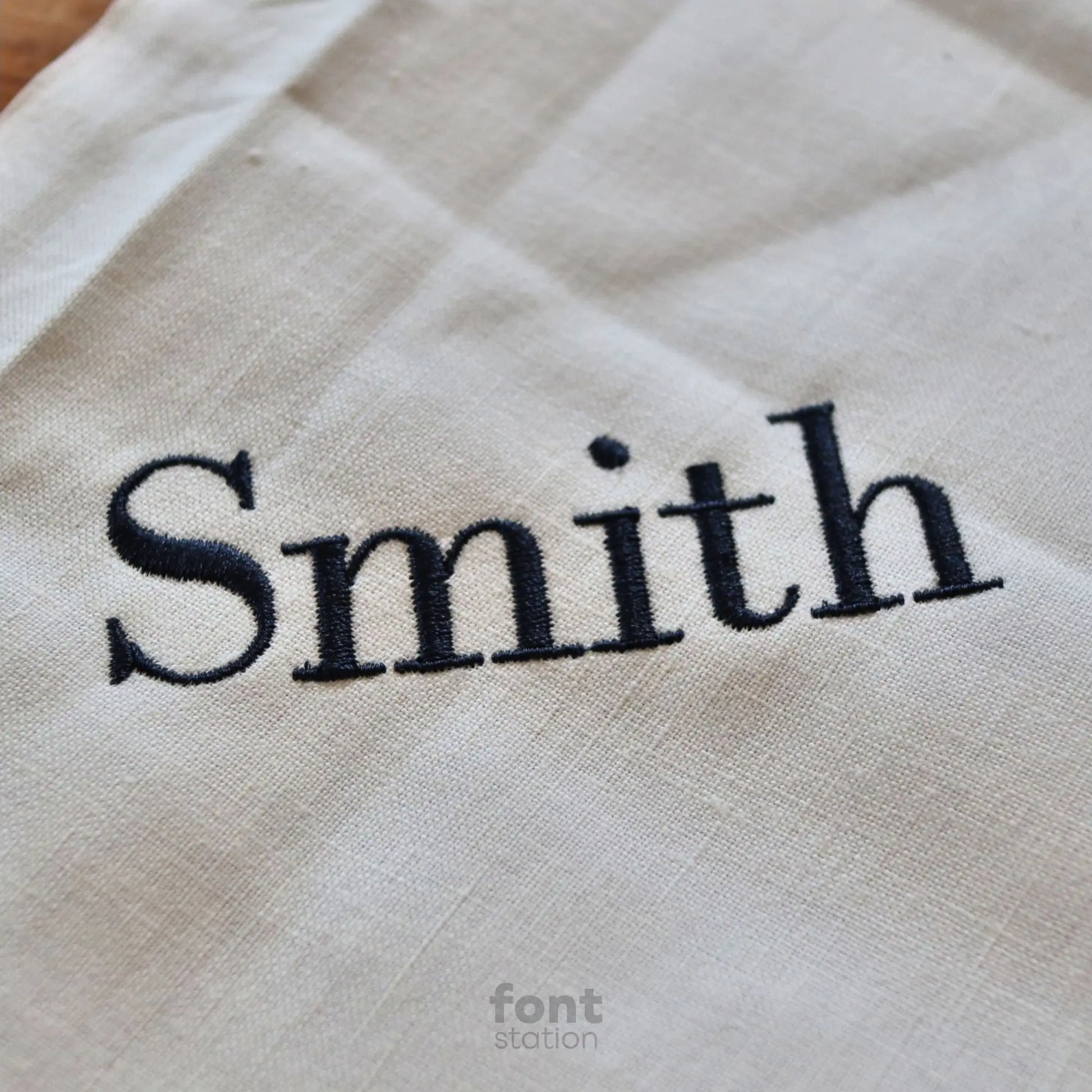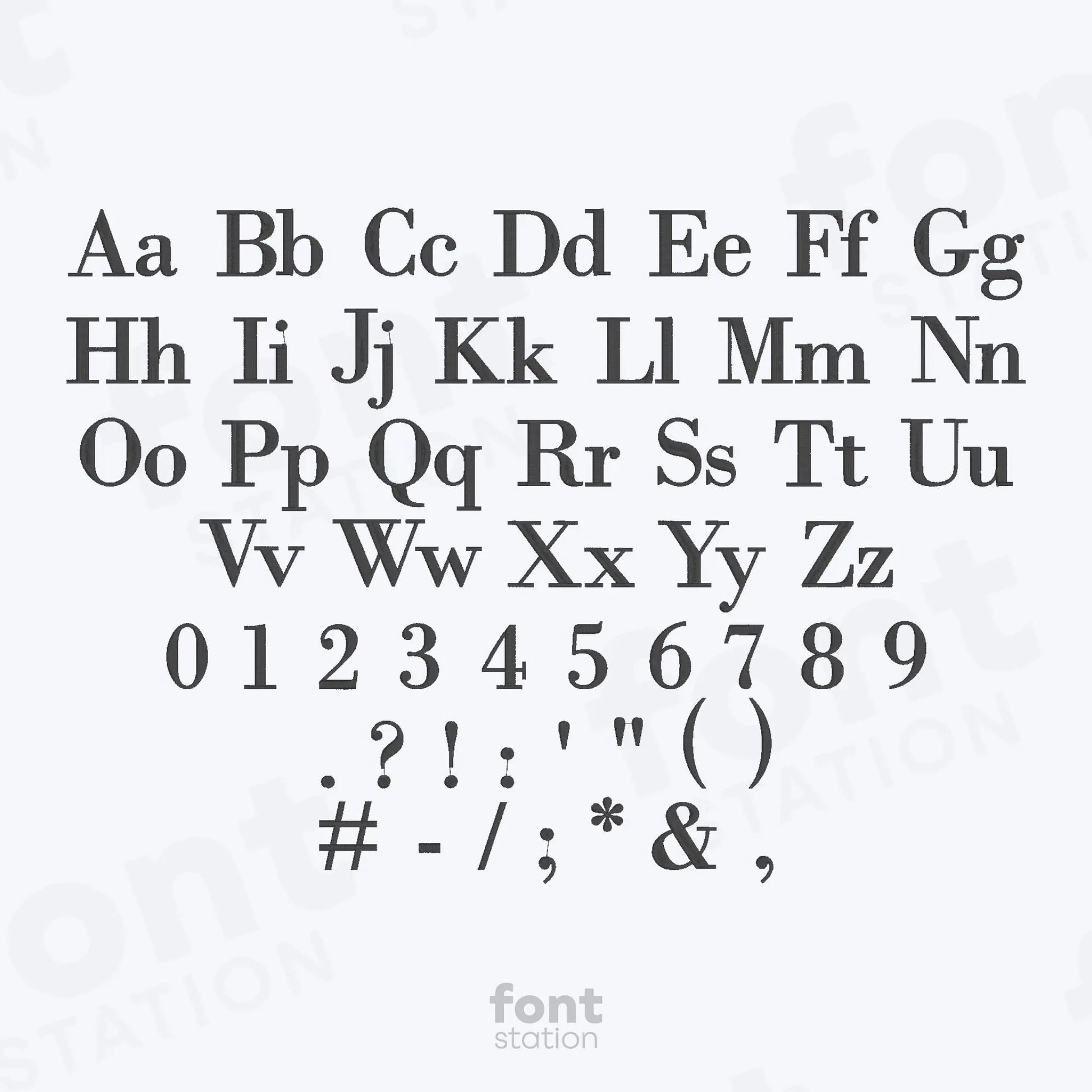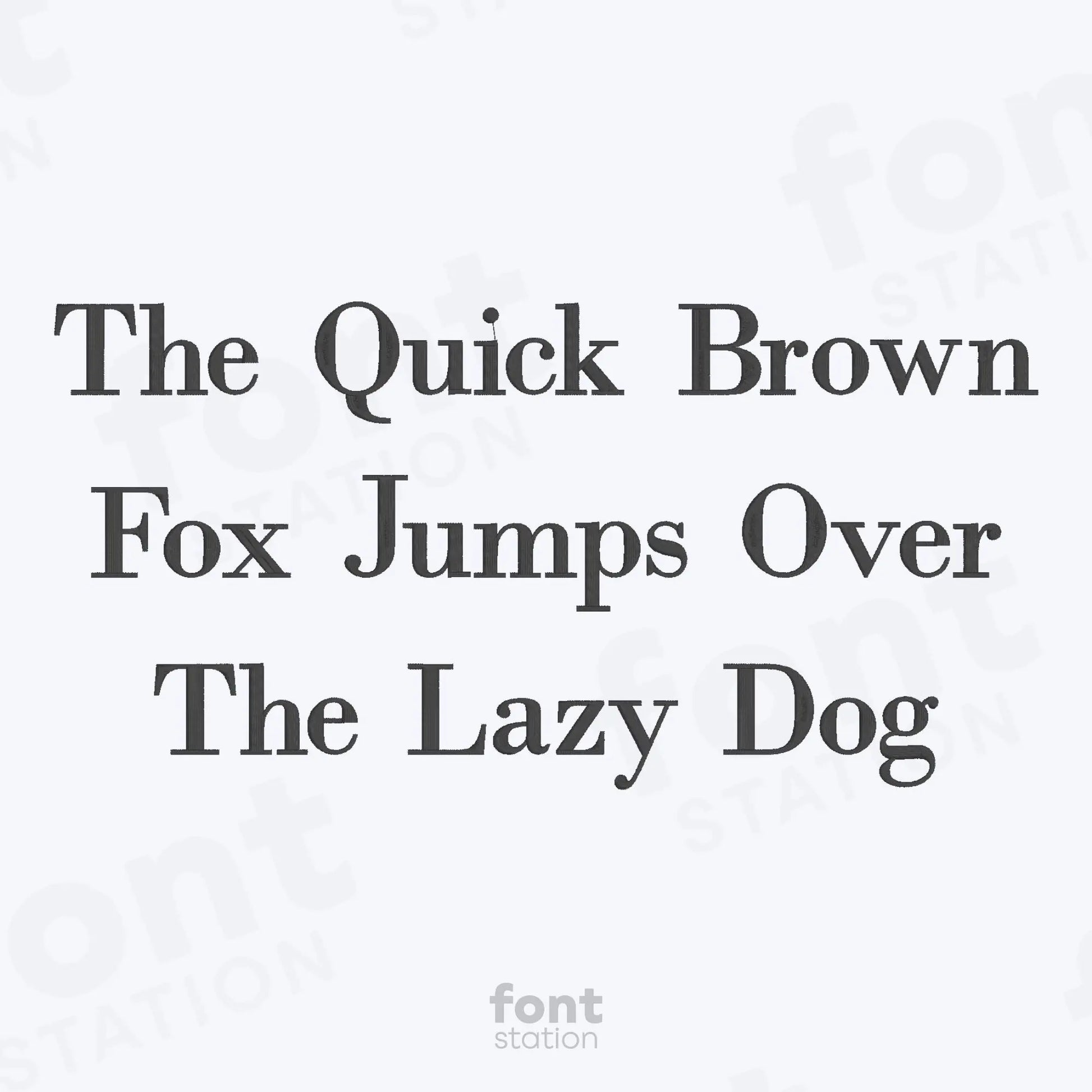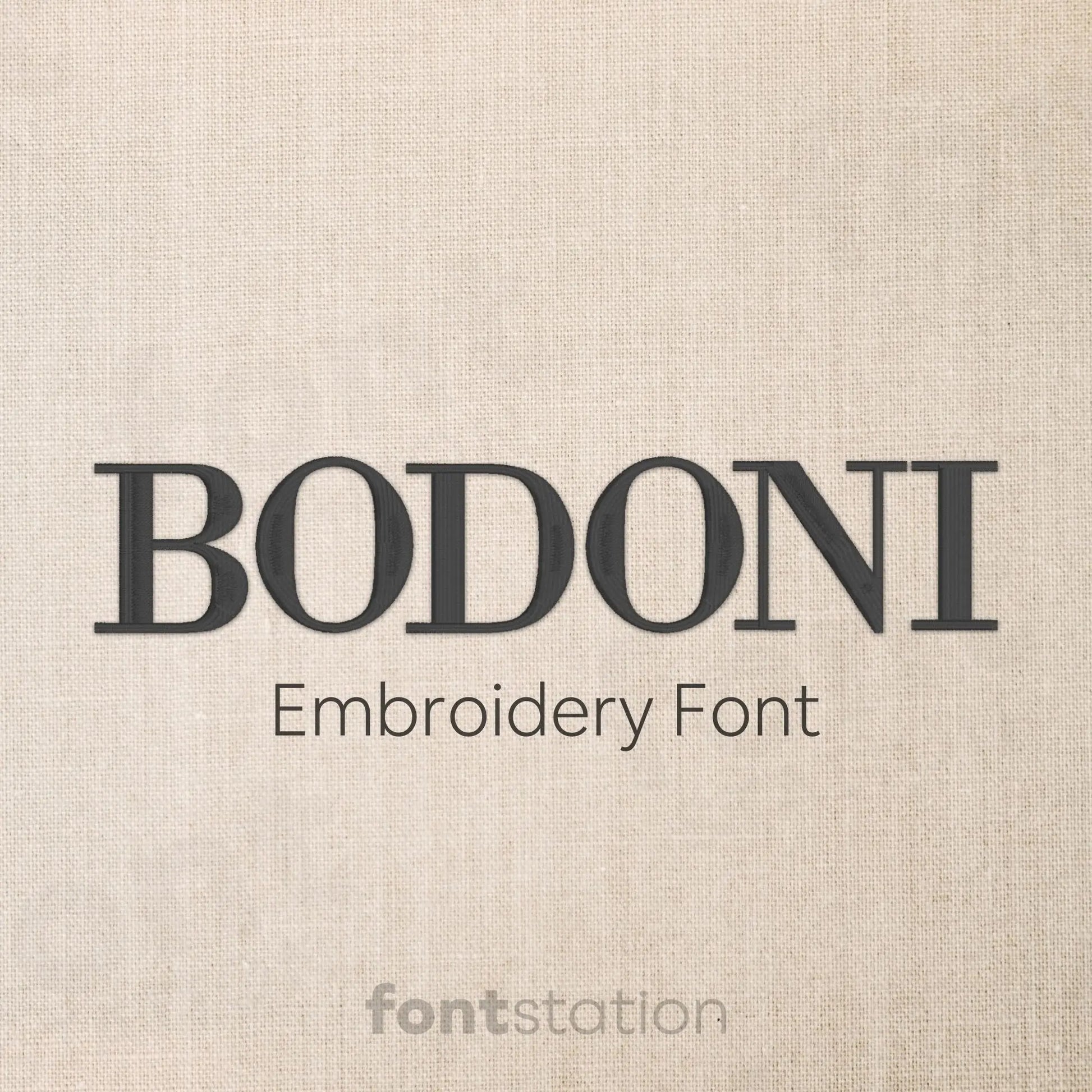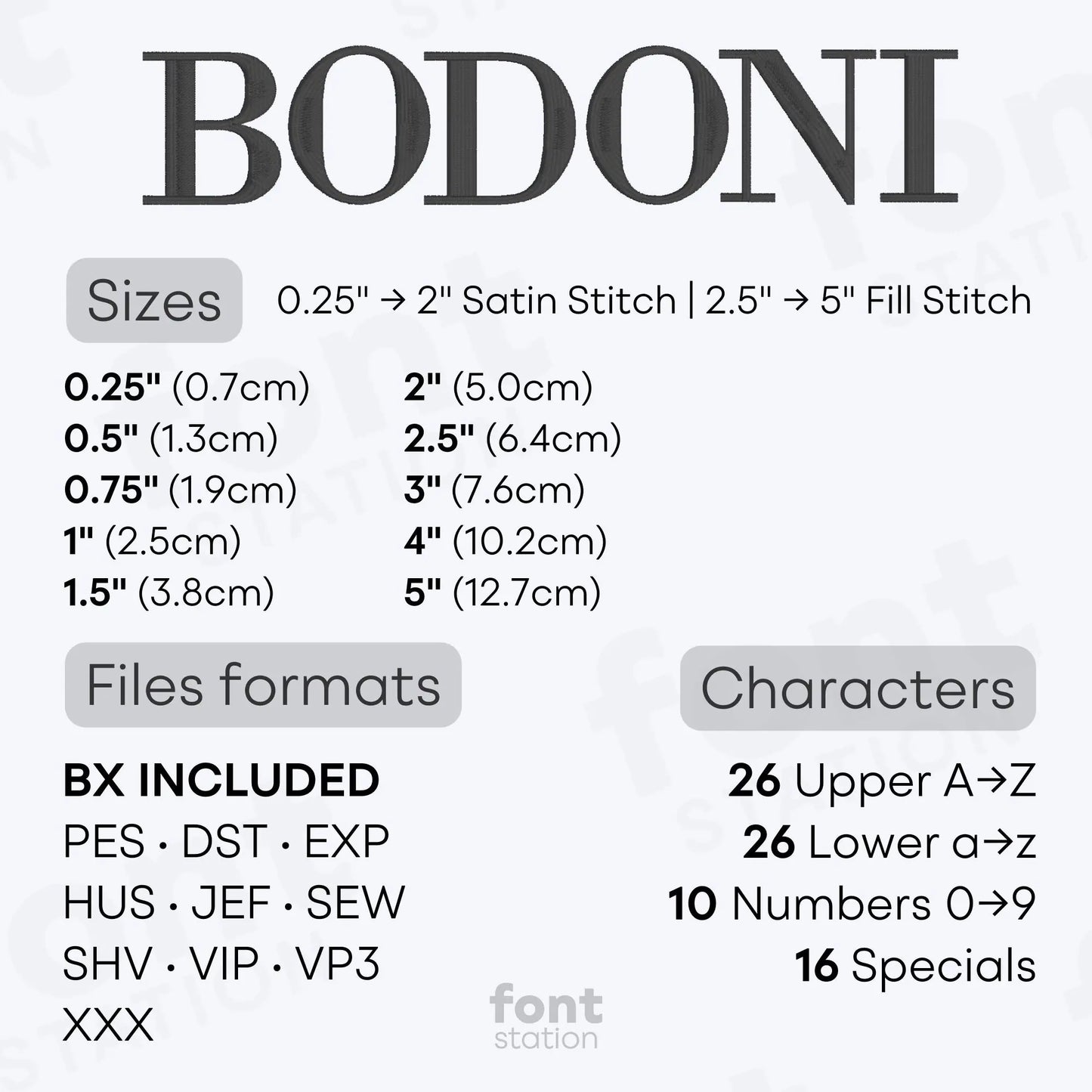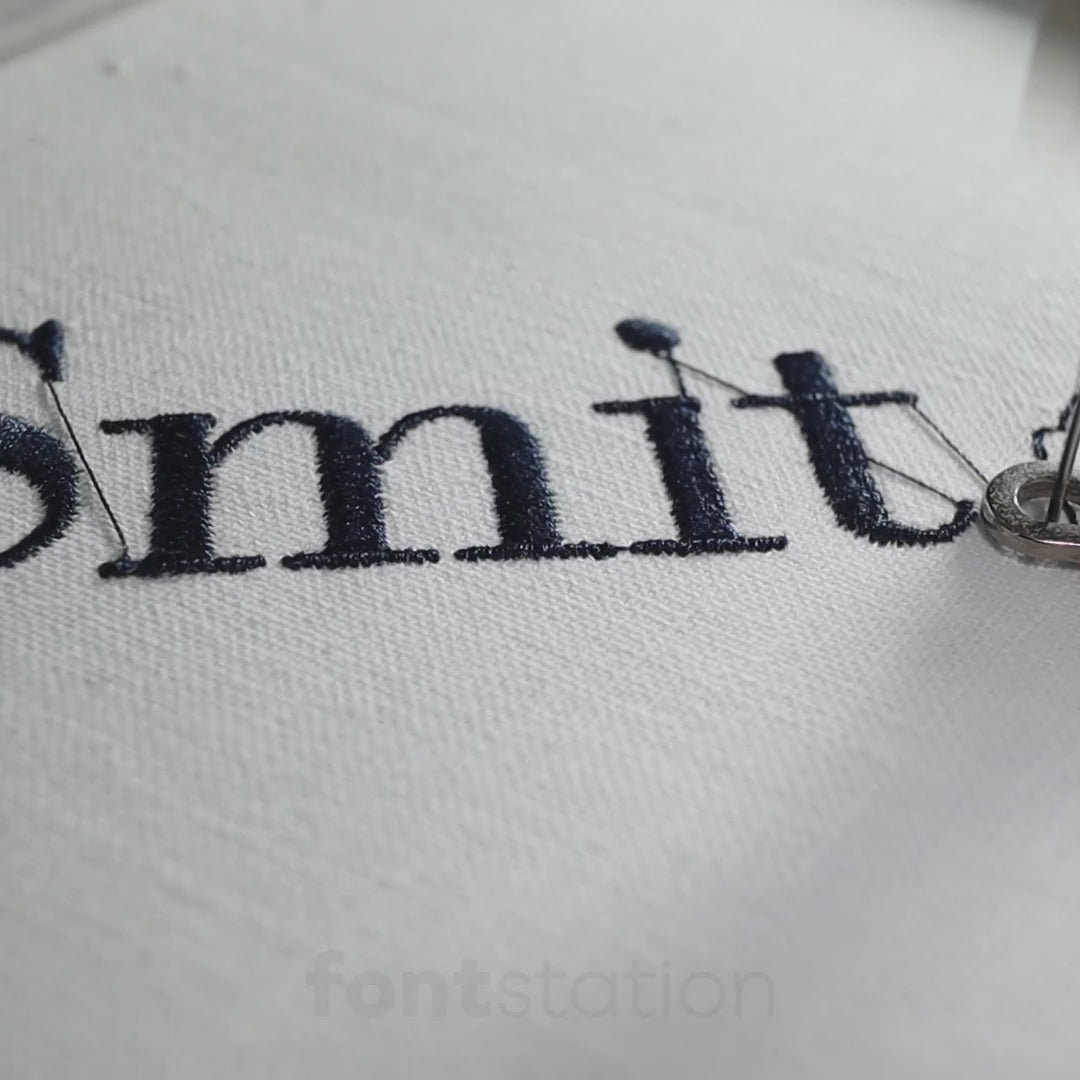
Bodoni Embroidery Font
Introducing our Bodoni embroidery font, an elegant, modern serif alphabet designed for clean stitching on your embroidery machine. These stylish letters bring sophistication to any project, making your designs stand out with precision and charm.
About the Bodoni Embroidery Font
Bodoni Embroidery Font - Elegant Modern Serif Alphabet for Machine Embroidery
Our Bodoni embroidery font features a refined modern serif alphabet designed to add a touch of elegance and sophistication to your embroidery projects. This professionally digitized machine embroidery font delivers clean, crisp stitching, perfect for personalized gifts, monograms, home décor, and custom apparel. With its timeless style, the Bodoni font offers beautifully crafted letters that stand out on a variety of fabrics.
This is a beautiful, clean, classy font. I ever so slightly embellished the "B" to create a monogram. Everything turned out fantastic. Clean stitching and easy BX format sizing. Thank you for sharing your digitizing talents.
Letters are wide - 5 inch tall W is almost 5 inches wide - consider that when picking size!